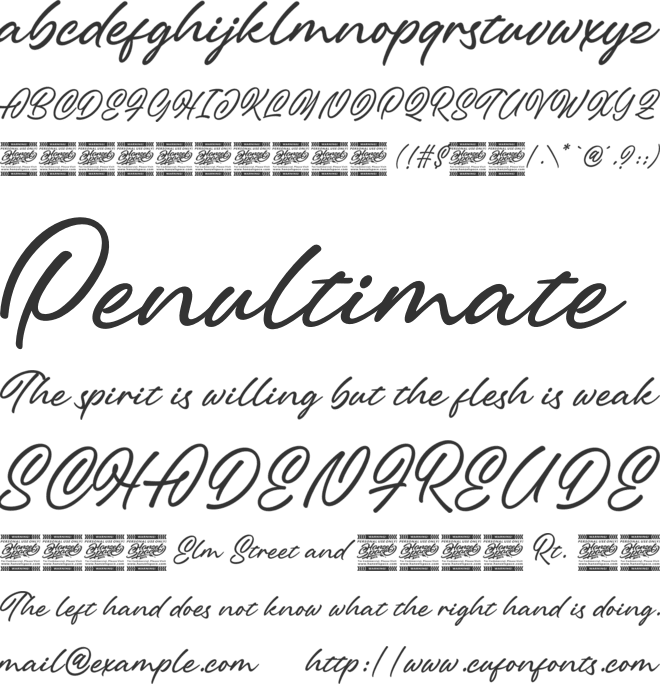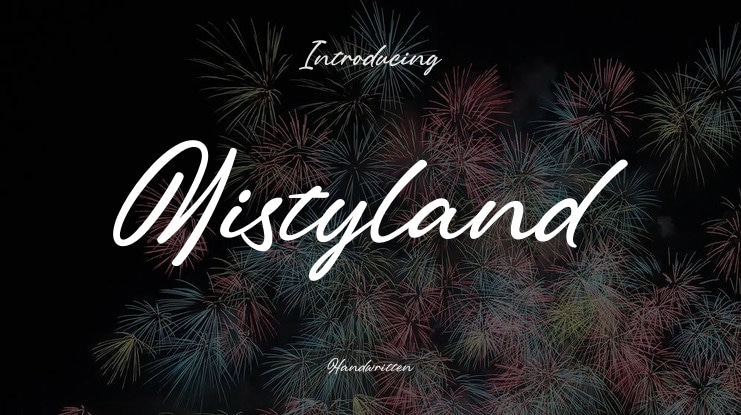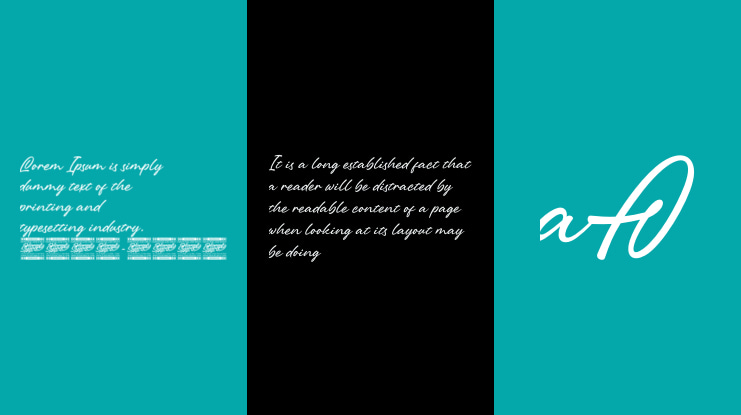
Mistyland – Calligraphy Script Font
Introducing the “Mistyland” font, this font is inspired by an elegant design and its anatomy looks proportional and attractive in every curve so that this font is very suitable for use in various designs for product branding, logos, labels and others.
Features:
– Full Set of standard alphabet and punctuation
- Ending swash and Ligatures
– Multilingual Characters (ÁÂÄÀÅÃÆÇÐÉÊËÈÍÎÏÌÑÓÔÖÒØÕÚÛÜÙẂŴẄẀÝŶŸỲ áâäàåãæçðéêëèíîïìñóôöòøõœúûüùẃŵẅẁýŷÿỳ€£¥)